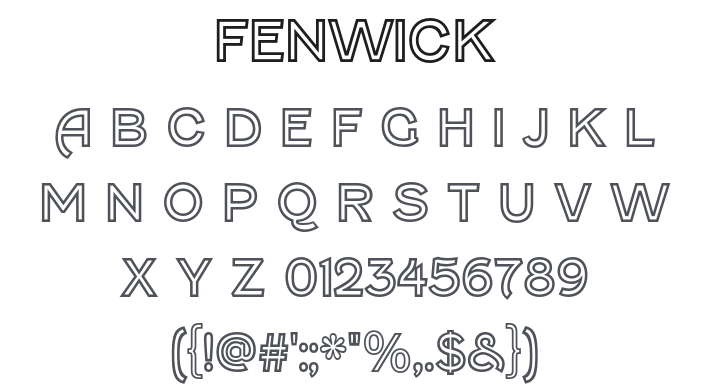
Fenwick Font
About Fenwick
Fenwick combines early 20th-century industrial elegance with modern precision, offering a balance of warmth and authority. Its clean forms and steady rhythm work across packaging, signage, editorial layouts, and branding. The family includes practical weights with matching italics and a distinctive Outline style that evokes engraved lettering for striking display use. Features such as old-style numerals, fractions, and broad language support add professional versatility. Designed for both print and digital environments, Fenwick delivers timeless clarity with crafted detail and adaptable strength.